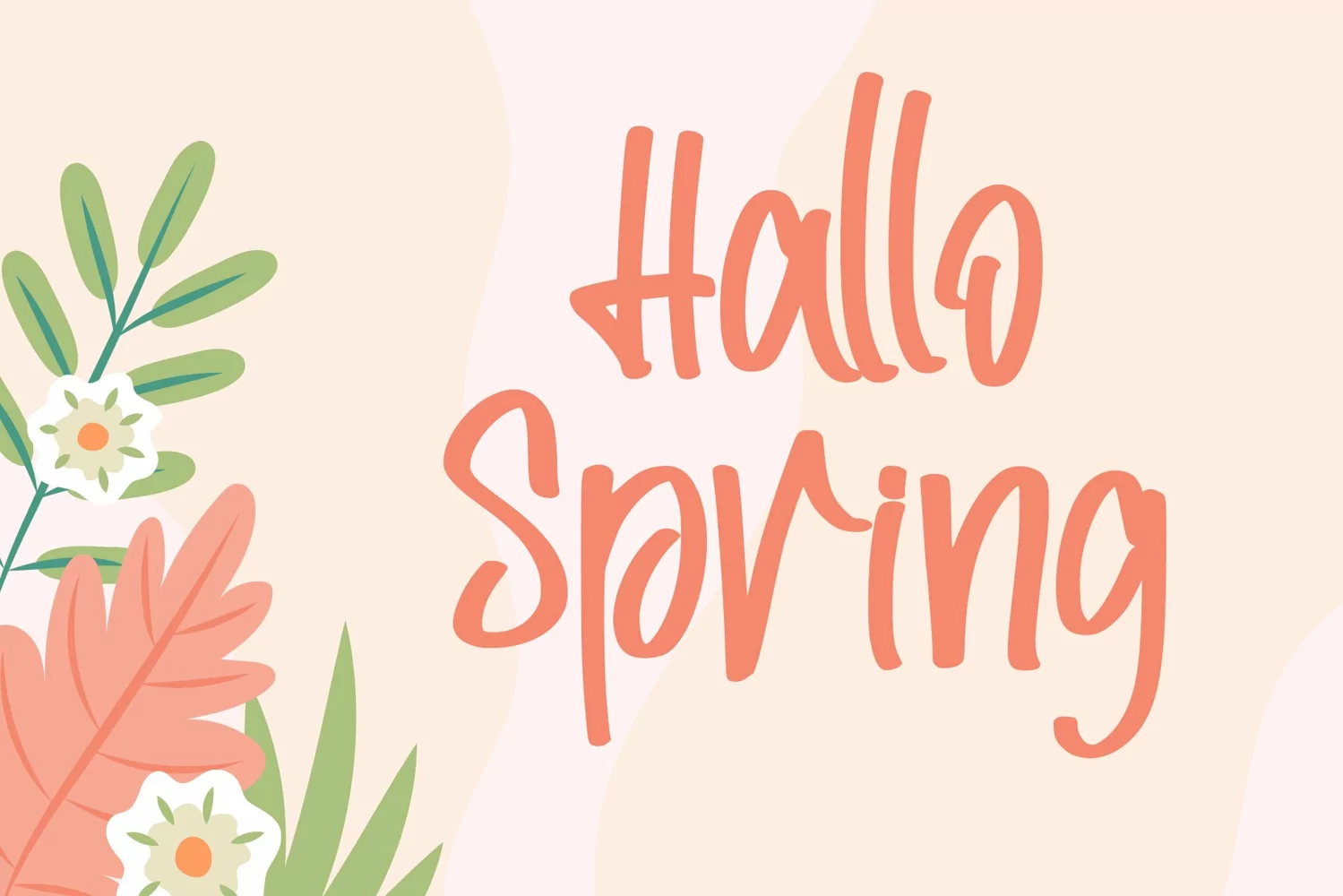
Captain Kangaroo is a cute and sweet handwritten font with an incredibly friendly feel. This font will turn any creative idea into a true piece of art!
This font is PUA encoded which means you can access all of the cute glyphs with ease! It also features a wealth of special features including ligatures.